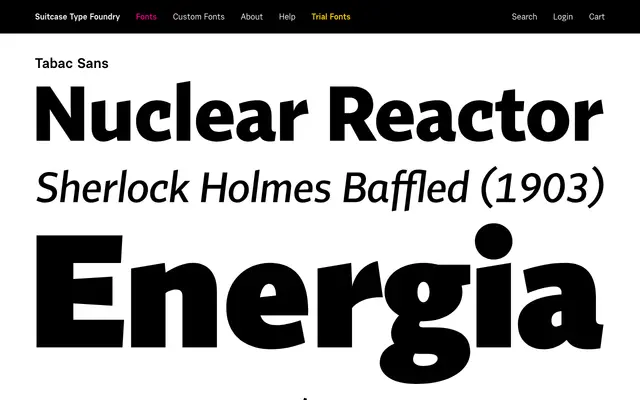
A humanist sans component of the wider Tabac type system from Suitcase Type Foundry, designed to work in concert with the family's serif and slab variants.
Tabac Sans belongs to an extensive type system that includes Tabac, Tabac Slab, Tabac Glam, Tabac Micro, Tabac Mono and Tabac Big Sans, giving designers a coordinated toolkit across multiple genres. The sans variant is built for text and editorial use, sharing proportions with its siblings for consistent typographic colour across a publication or identity. The breadth of the system makes it particularly suited to complex publishing and branding projects requiring typographic consistency.
Part of the broader Tabac type system, Tabac Sans sits within a humanist sans tradition, designed to complement the serif and slab members of the family with matching proportions and spacing.